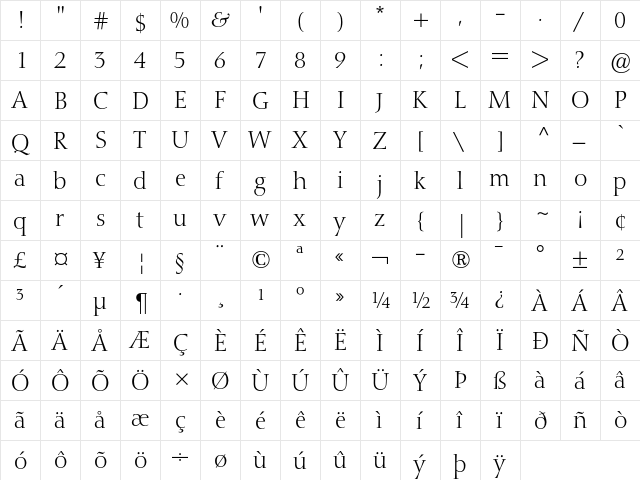
Nofret Light
Design Context for Nofret Typeface
Nofret is a composed and adaptable typeface that performs quietly and consistently across a wide range of design contexts. Its slender proportions lend an understated elegance to any composition.
Pro Tip: Pair Nofret with a font of contrasting weight or personality to build a more expressive typographic hierarchy.